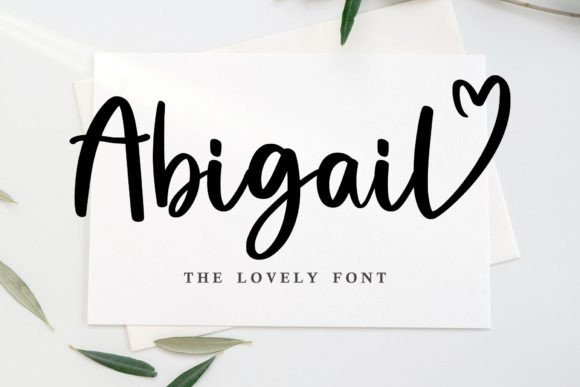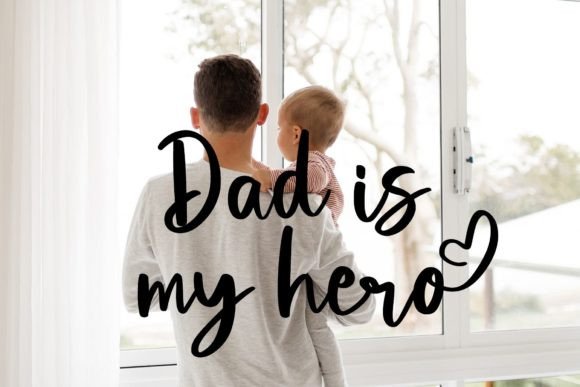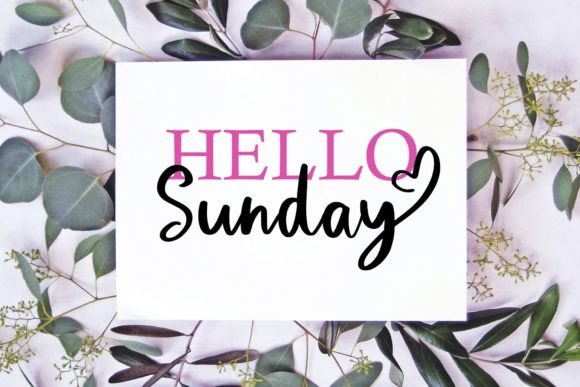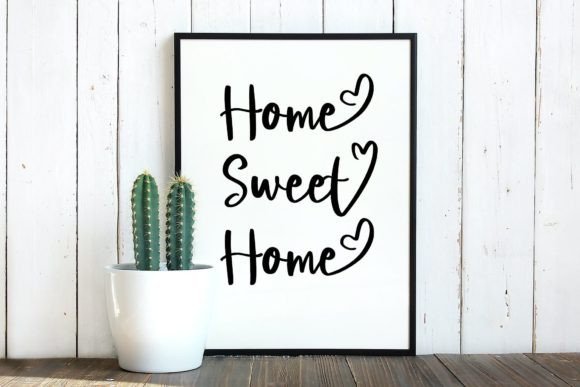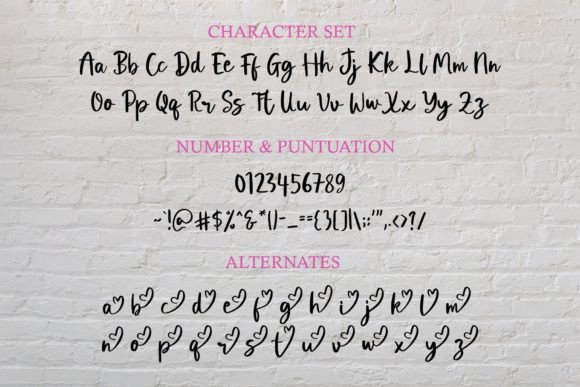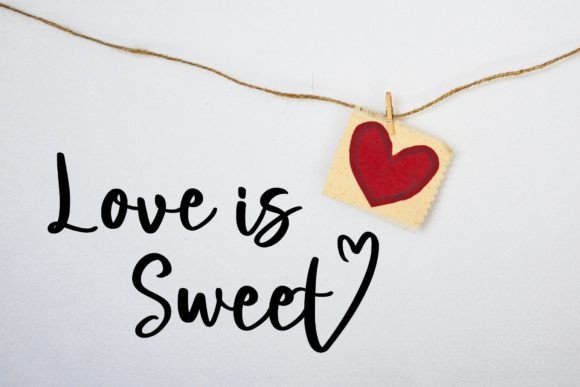
Abigail Font
About Abigail Font
Abigail is a delightful script font that exudes charm, showcasing playful characters that gracefully dance along the baseline. Introduce this font to your most imaginative projects, and experience the transformative effect it imparts, effortlessly making your creations stand out with a touch of whimsical elegance.
The unique appeal of Abigail lies in its ability to infuse a sense of joy and creativity into your designs. The characters, with their lively demeanor, lend a dynamic quality to any project, turning the ordinary into the extraordinary. Whether you’re working on invitations, branding, posters, or any other creative endeavor, Abigail has the power to elevate your ideas and captivate your audience.
What sets Abigail apart is its PUA encoding, a feature designed for user convenience. This encoding allows seamless access to an array of amazing glyphs and ligatures. Navigating through the font’s intricacies becomes a breeze, enabling you to customize and enhance your designs with ease. This accessibility ensures that Abigail is not just a font but a versatile tool that empowers designers of all levels to unlock its full potential.
Incorporate Abigail into your design repertoire, and witness how it breathes life into your projects, adding a touch of personality and charm. Let the characters dance across your canvas, turning each creation into a visual celebration. With Abigail, your designs will not only stand out but also leave a lasting impression, thanks to its playful yet sophisticated allure.